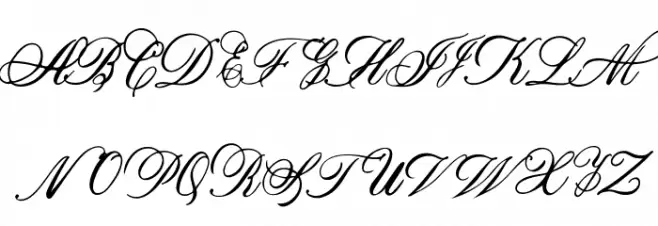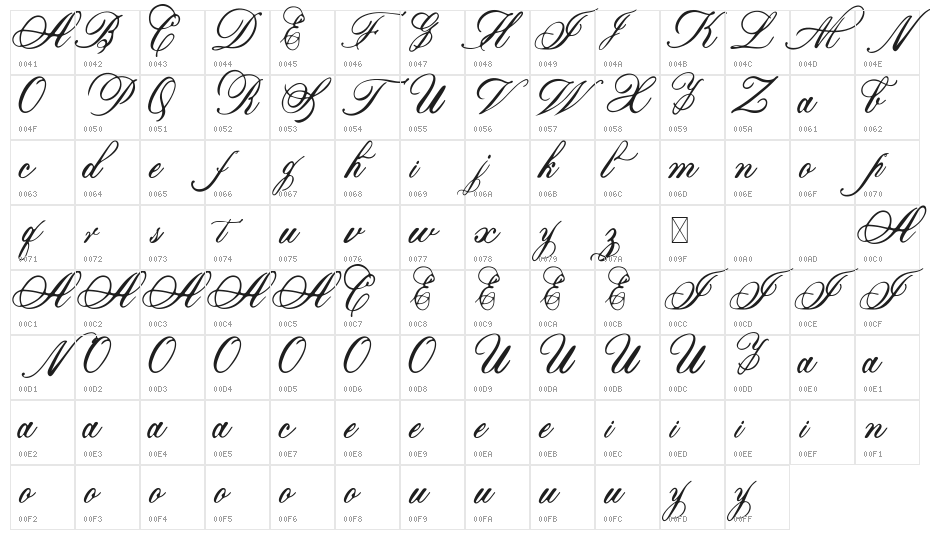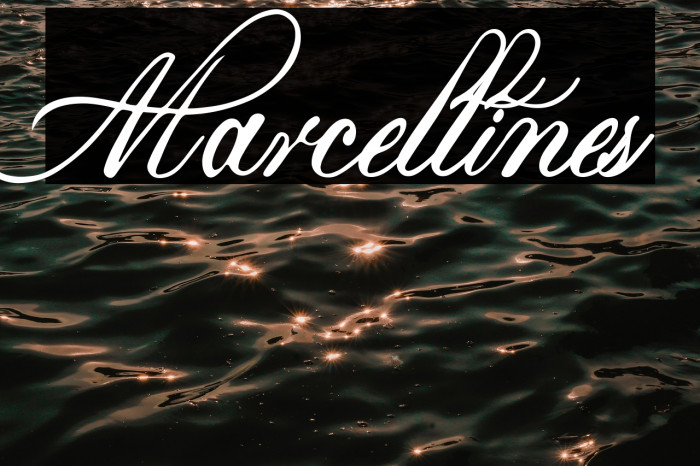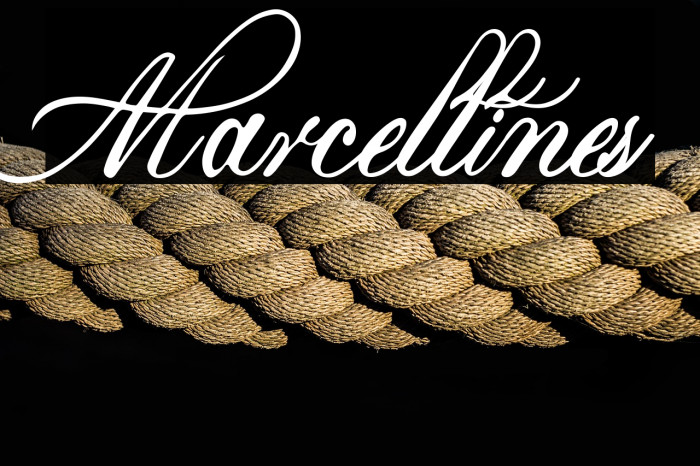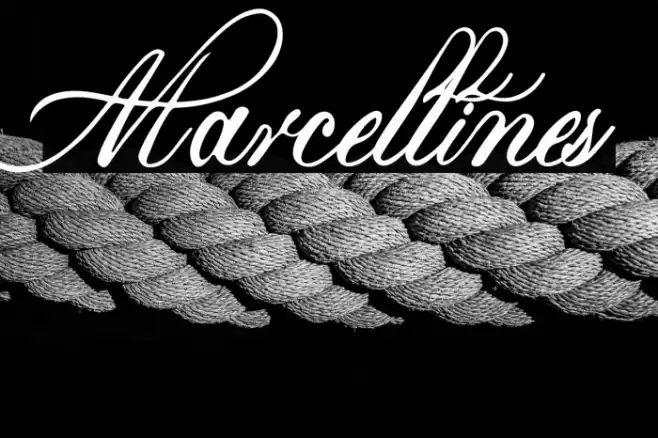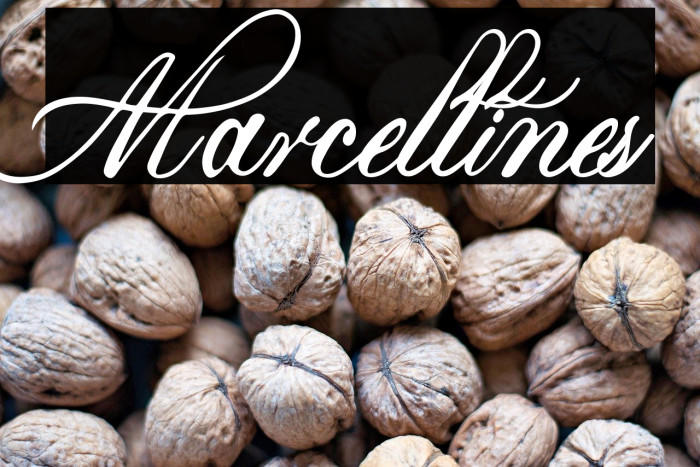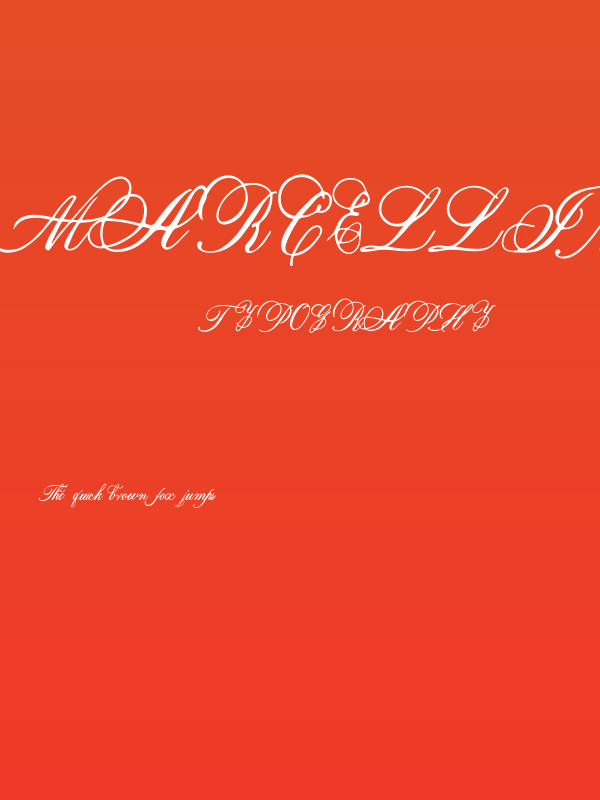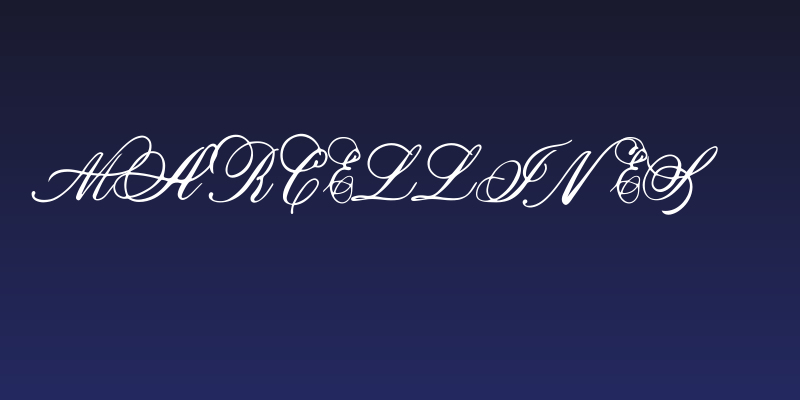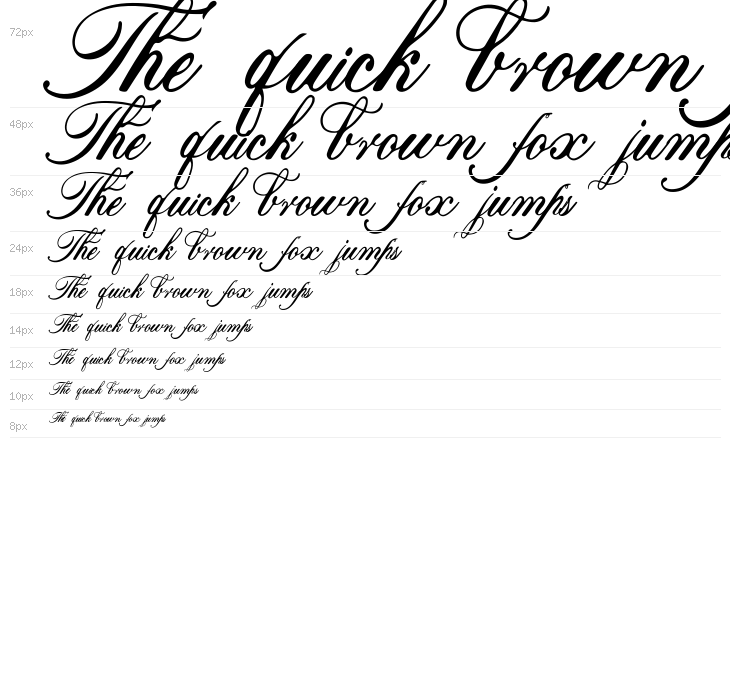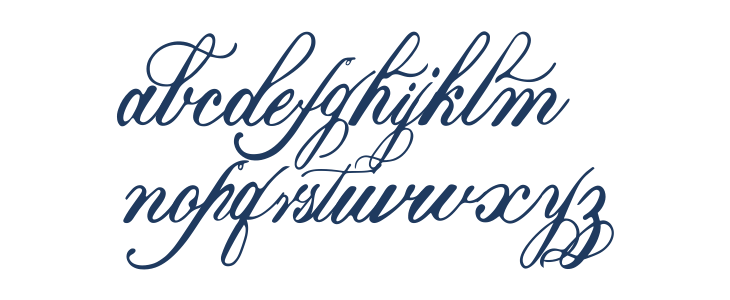
Marcellines Font
Marcellines Description
This elegant script font features intricate, flowing lines with a classic calligraphic style. The uppercase letters are adorned with elaborate swirls and loops, giving them a sophisticated and decorative appearance. The lowercase letters maintain a consistent flow, with smooth connections between characters, enhancing the font's cursive nature. The font's overall design exudes a sense of grace and refinement, making it ideal for formal invitations, elegant branding, and artistic projects. Its high contrast in stroke thickness adds to its visual appeal, creating a striking balance between the thin and thick lines.
| Use Case | Headlines, Invitations, Artistic projects |
| Proposed Projects | Ideal for wedding invitations, elegant branding, artistic projects, and formal stationery. |